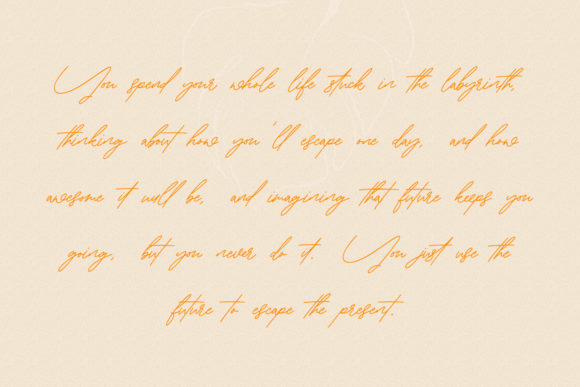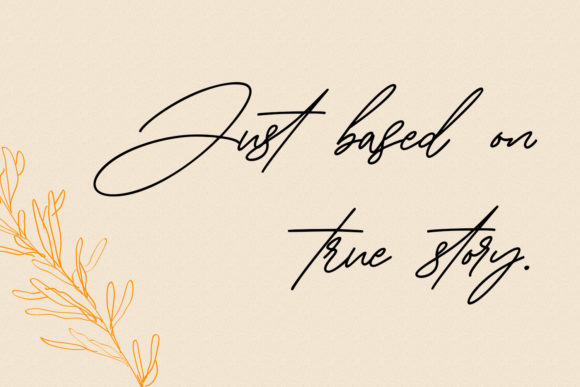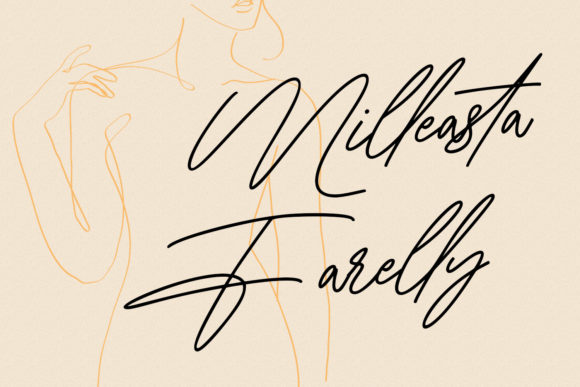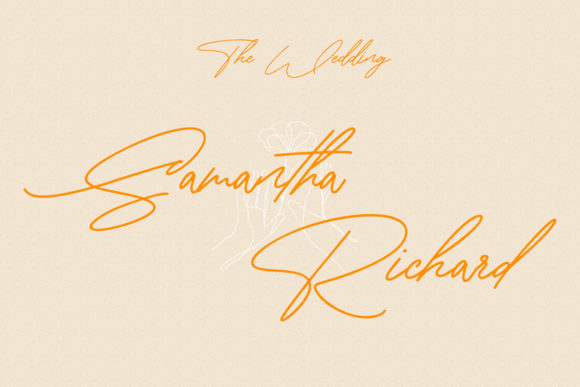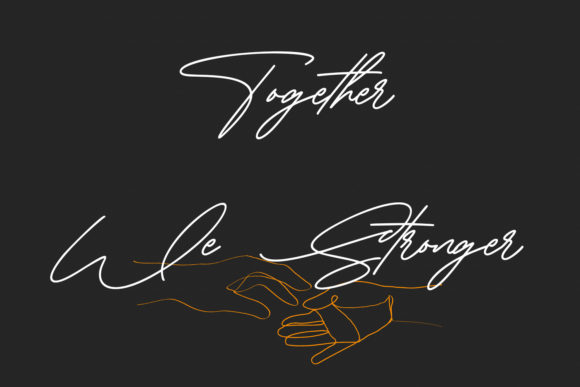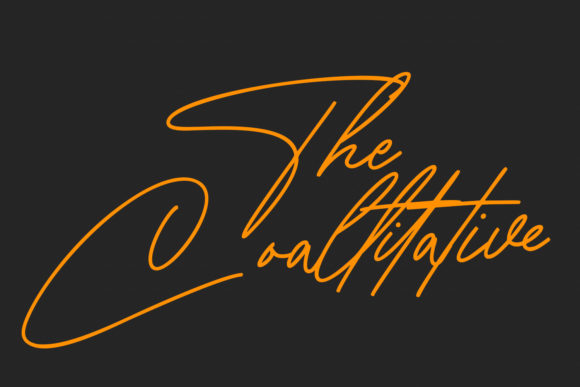
Introduction to Hilority Font
Hilority is a relaxed and informal script font.
Key Features of Hilority Font
Why Choose Hilority Font?
Hilority Font offers exceptional quality and versatility, making it a valuable addition to your design toolkit. Whether you’re creating for personal projects or commercial use, Hilority Font delivers professional results.